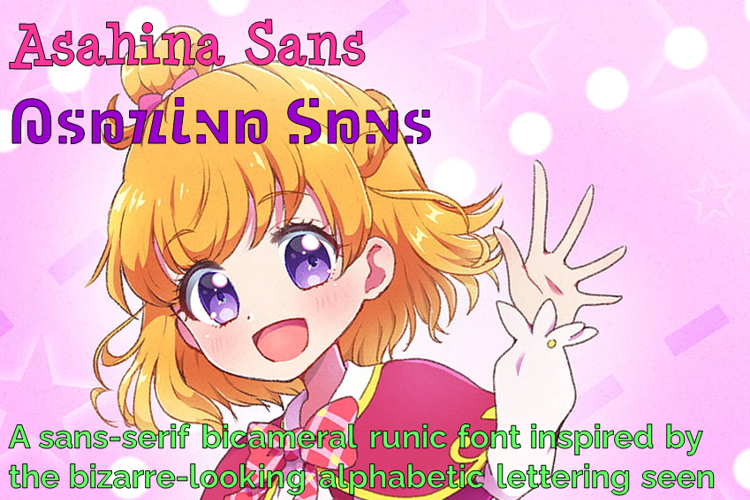
Asahina Sans Font
Asahina Sans is a sans-serif bicameral witch-like alphabetic font inspired by the alphabetic lettering seen in Witchy Pretty Cure! and is based on a popular open-source font, Raleway.